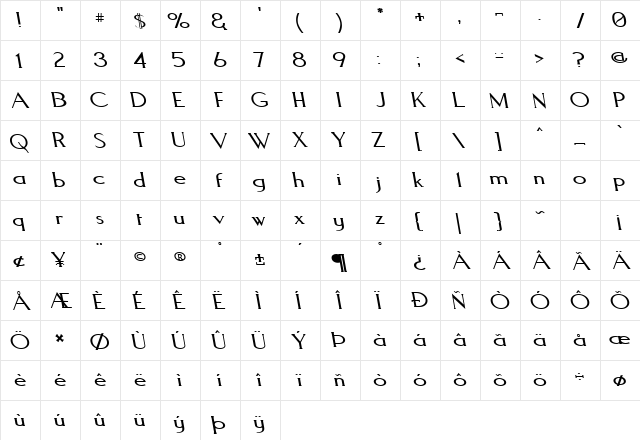
Aquaduct Reverse Italic Regular
Design Context for Aquaduct Reverse Italic Typeface
Aquaduct Reverse Italic takes a measured approach to typography — its balanced proportions and neutral character make it a reliable workhorse for both digital and print work. The dynamic lean of this cut emphasises speed and emphasis in any layout.